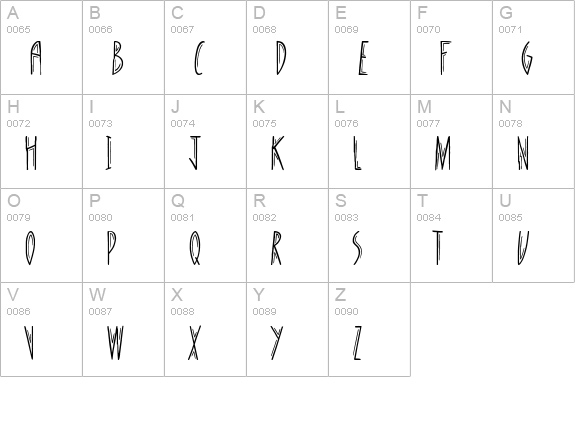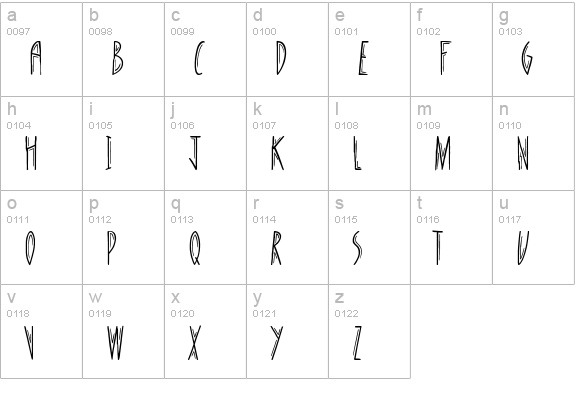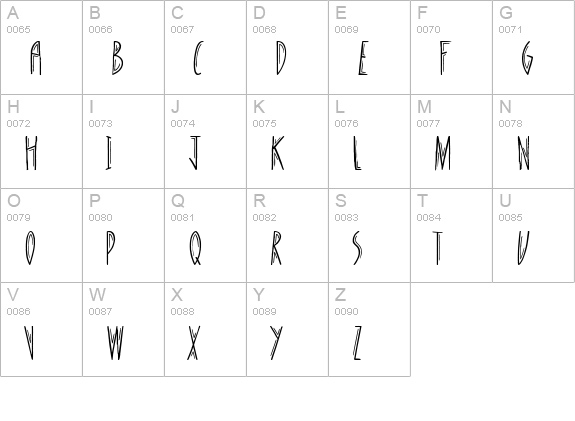
The tall font is a stunning display typeface that commands attention with its towering letterforms and elegant design. Its elongated proportions and sleek lines make it perfect for headlines, titles, and logos that require a touch of sophistication and grandeur. With its generous x-height and vertical emphasis, this font exudes a sense of strength and authority. Its clean, modern aesthetic makes it suitable for a wide range of creative projects, from advertising campaigns to website designs. But what sets this tall font apart is its availability for free download at FontsMarket.com. Yes, you read that right – this exceptional typeface can be yours at absolutely no cost. FontsMarket.com is a trusted source for high-quality fonts, and they are proud to offer this gem of a font for free, allowing designers, artists, and enthusiasts to explore its potential without any financial burden. Downloading this tall font is a breeze. Simply visit FontsMarket.com, browse their extensive collection, and locate the font. With just a few clicks, you'll have this remarkable typeface at your fingertips, ready to enhance your creative endeavors. So, don't miss out on this incredible opportunity to elevate your designs with the tall font. Download it for free at FontsMarket.com and unleash your creativity like never before.